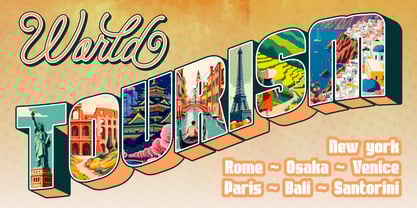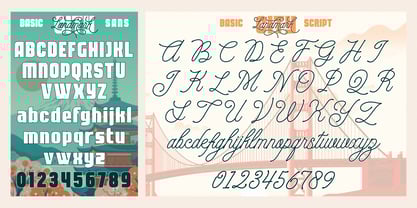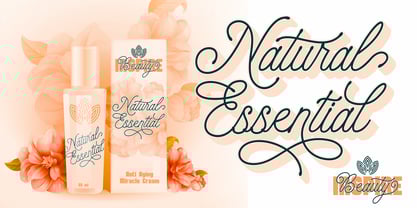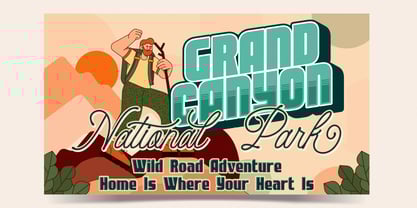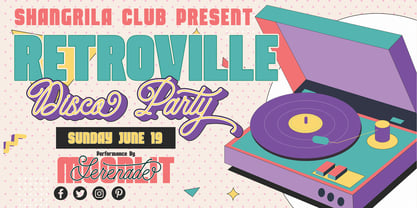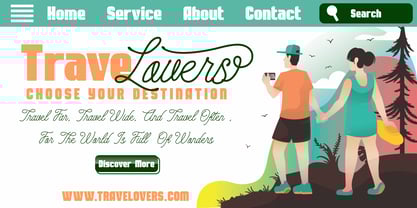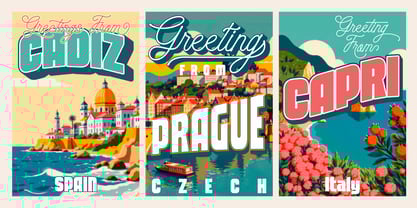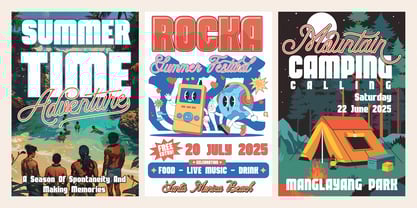
City Landmark
by Uncurve
The City Landmark Font Family was designed by Ferry Septian and published by Uncurve. City Landmark contains 2 styles and family package options. More about this family
City Landmark – Retro Font Duo (Sans & Script)
City Landmark is a bold and stylish font duo featuring a strong sans serif paired with a smooth script font. Inspired by classic retro and vintage designs like old postcards, signage, and greeting cards, this font brings nostalgic charm with a modern twist.
Perfectly suited for retro and vintage design, logos, packaging, posters, postcards, apparel, social media graphics, cafe signage, invitations, music gig promos, movie titles, and more,.
City Landmark makes it easy to create standout designs. The script style includes a variety of alternates, ideal for custom lettering and logo work, while the sans style adds solid contrast and boldness.
This combination is perfect for achieving an authentic retro aesthetic in all your creative projects.
Designers: Ferry Septian
Foundry: Uncurve